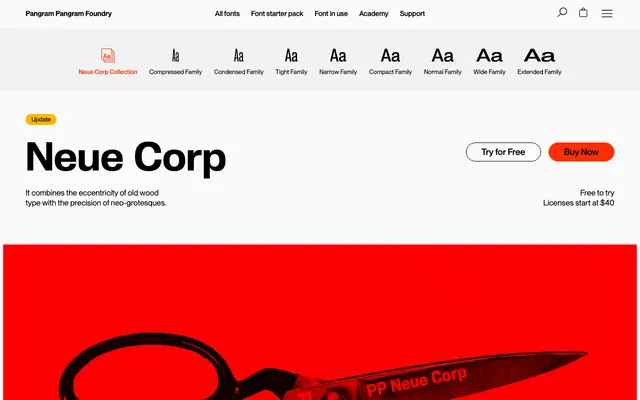
PP Neue Corp
PP Neue Corp specimen from Pangram Foundry
A 160-style advertising and corporate system across eight widths, with wood type, Helvetica Extended and Univers references and toggle sets for spurs.
PP Neue Corp is a sprawling advertising and corporate system designed as an all-purpose creative tool. It runs across eight widths from Compressed to Extended and ten weights for 160 styles, with stylistic sets that toggle between a more geometric neutral cut and a grotesque cut with spurs. The references are explicit: Black and Condensed styles draw on Hamilton wood type, the Wide Bolds nod to Helvetica Extended, and the regular weights soften Univers for a friendlier tone.
Advertising and corporate system across eight widths and ten weights for 160 styles; Black and Condensed cuts reference Hamilton Mfg. Co. wood type, Wide Bolds reference Helvetica Extended, regular styles draw on Univers with softened details. Stylistic sets toggle between geometric neutrality and grotesque with spurs.